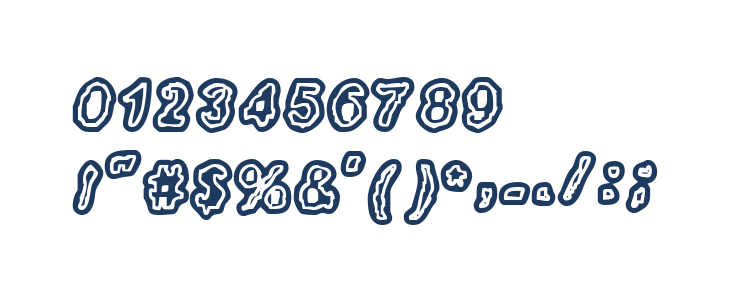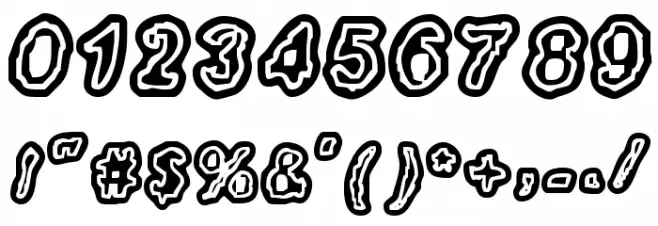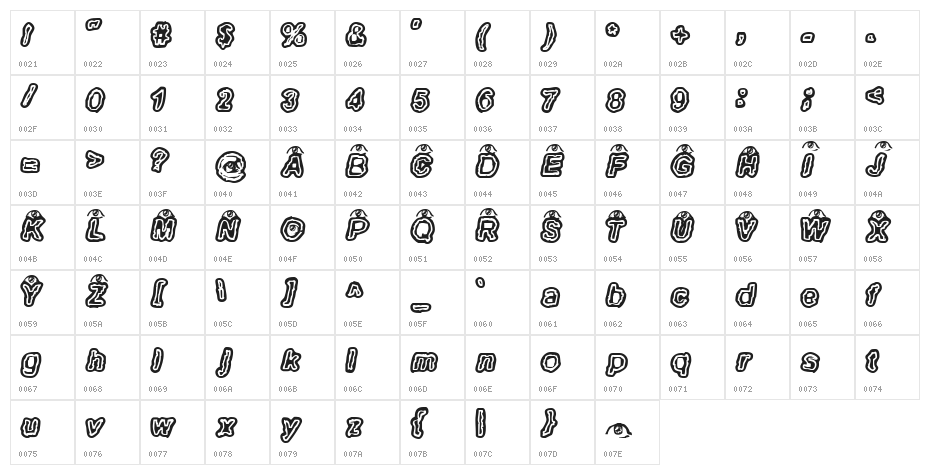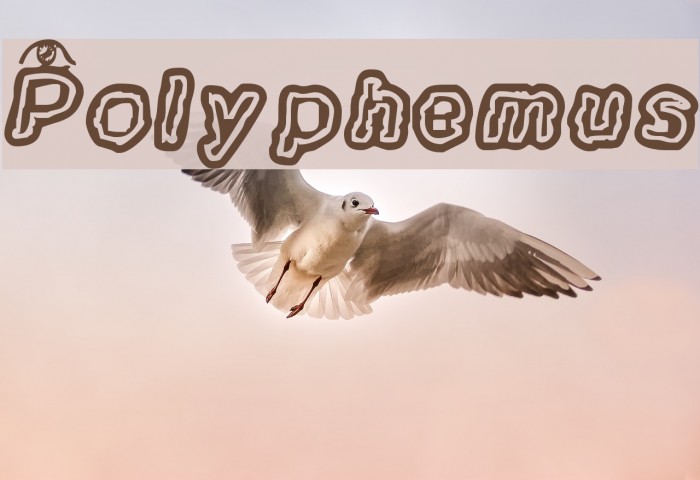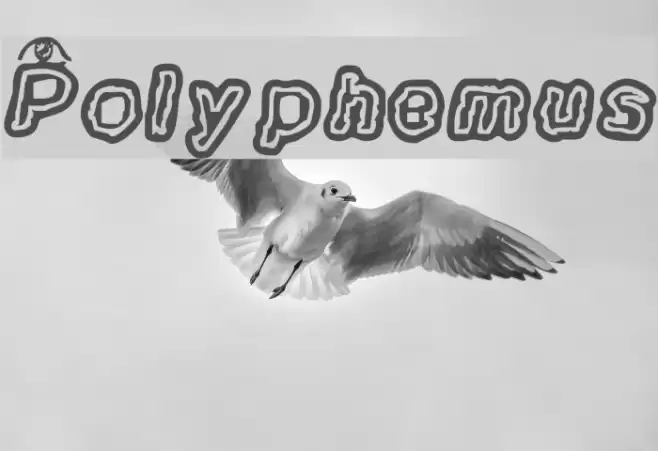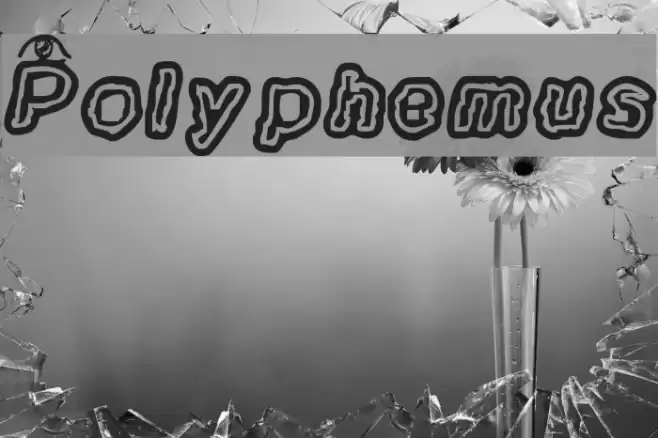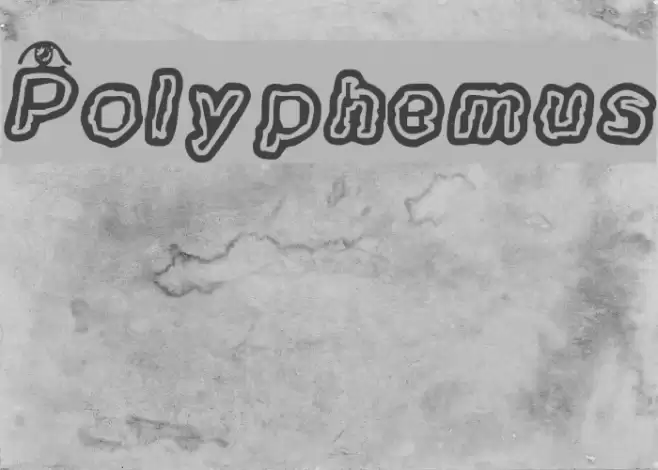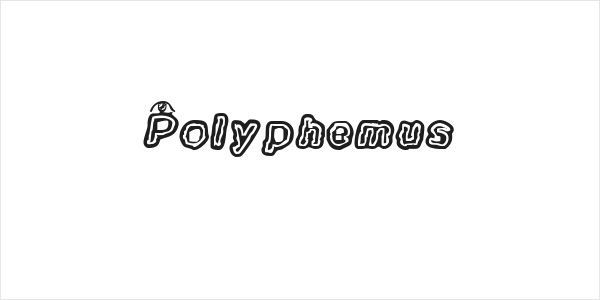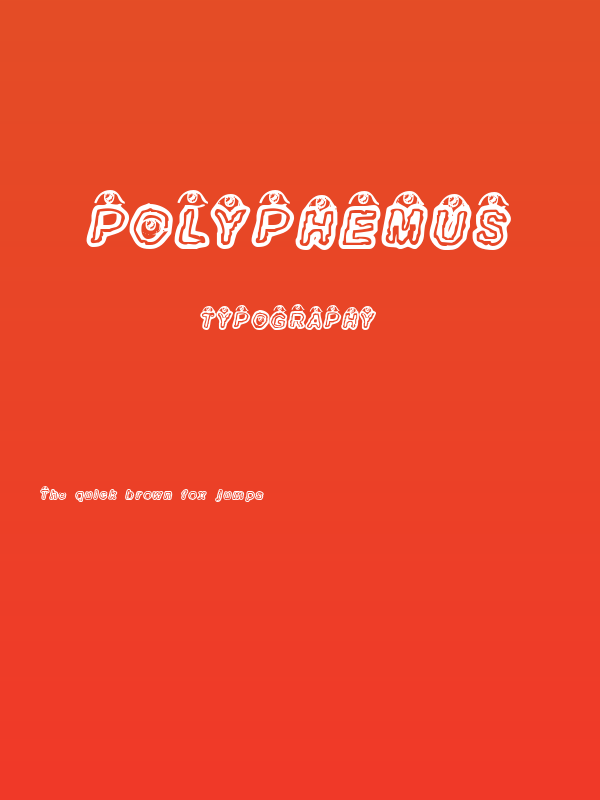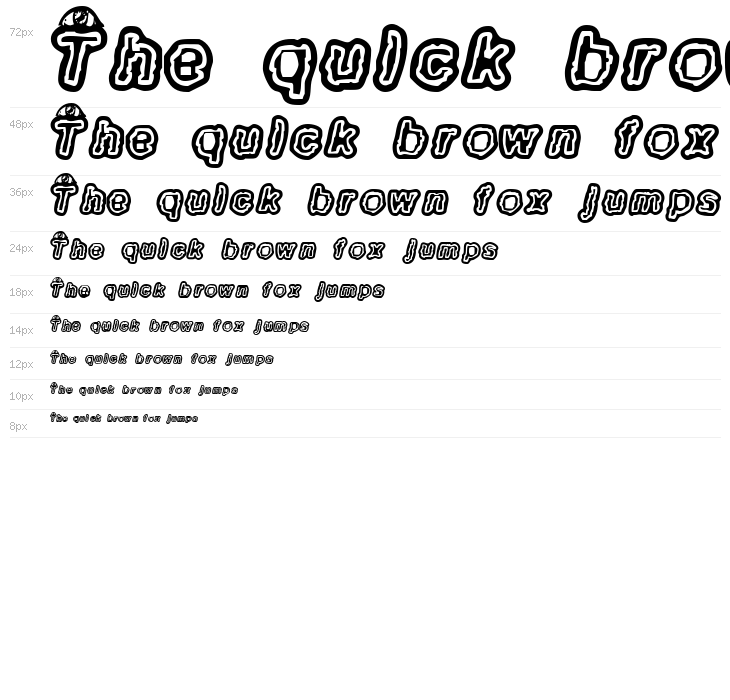
Polyphemus Font
Polyphemus Description
This font features a playful and bold design with a unique outline style. Each character is surrounded by a thick, irregular border that gives it a hand-drawn, cartoonish appearance. The uppercase and lowercase letters maintain a consistent style, with rounded edges and a whimsical flair. The numbers and special characters follow the same design principles, ensuring a cohesive look across all glyphs. This font's distinctive style makes it stand out, making it ideal for creative and fun projects.
| Overall Style | Playful, Cartoonish |
| Proposed Projects | Ideal for children's books, comic strips, posters, and playful branding. |